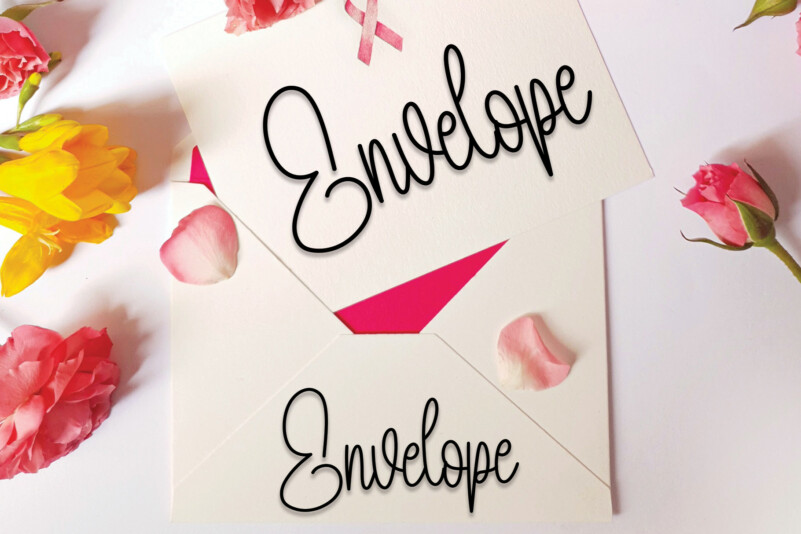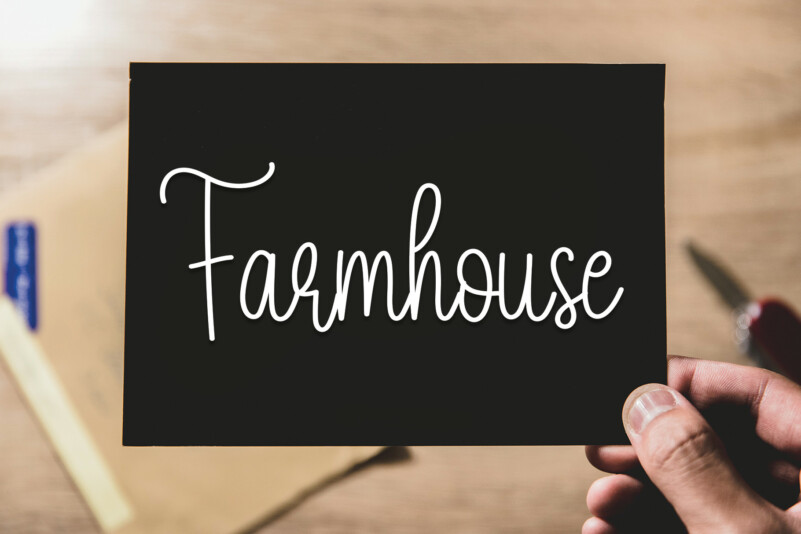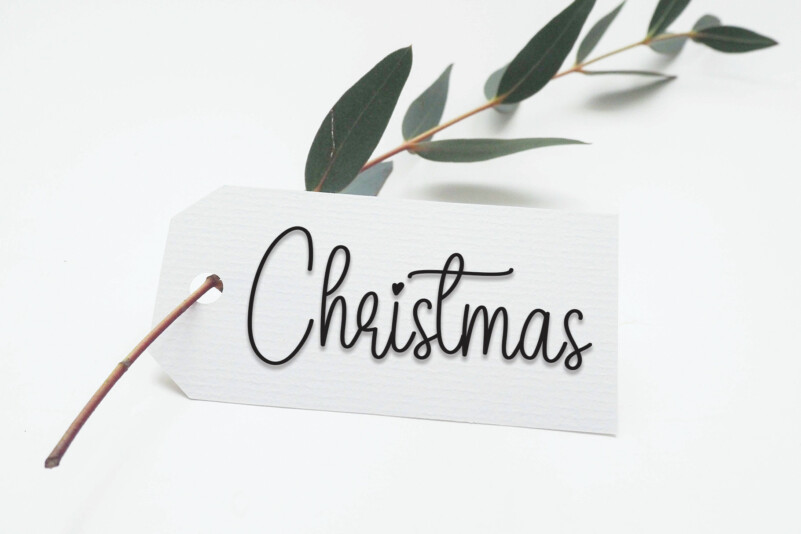
Winter Night Handwritten Font
Winter Night’s latest style letters are perfect for wall displays, wedding invitations, social media post logos, advertisements, product packaging, product designs, labels, photography, watermarks, invitations, stationery, and any project that requires a handwritten taste.